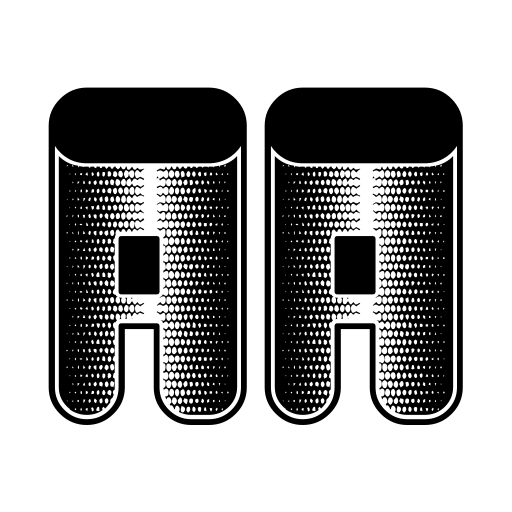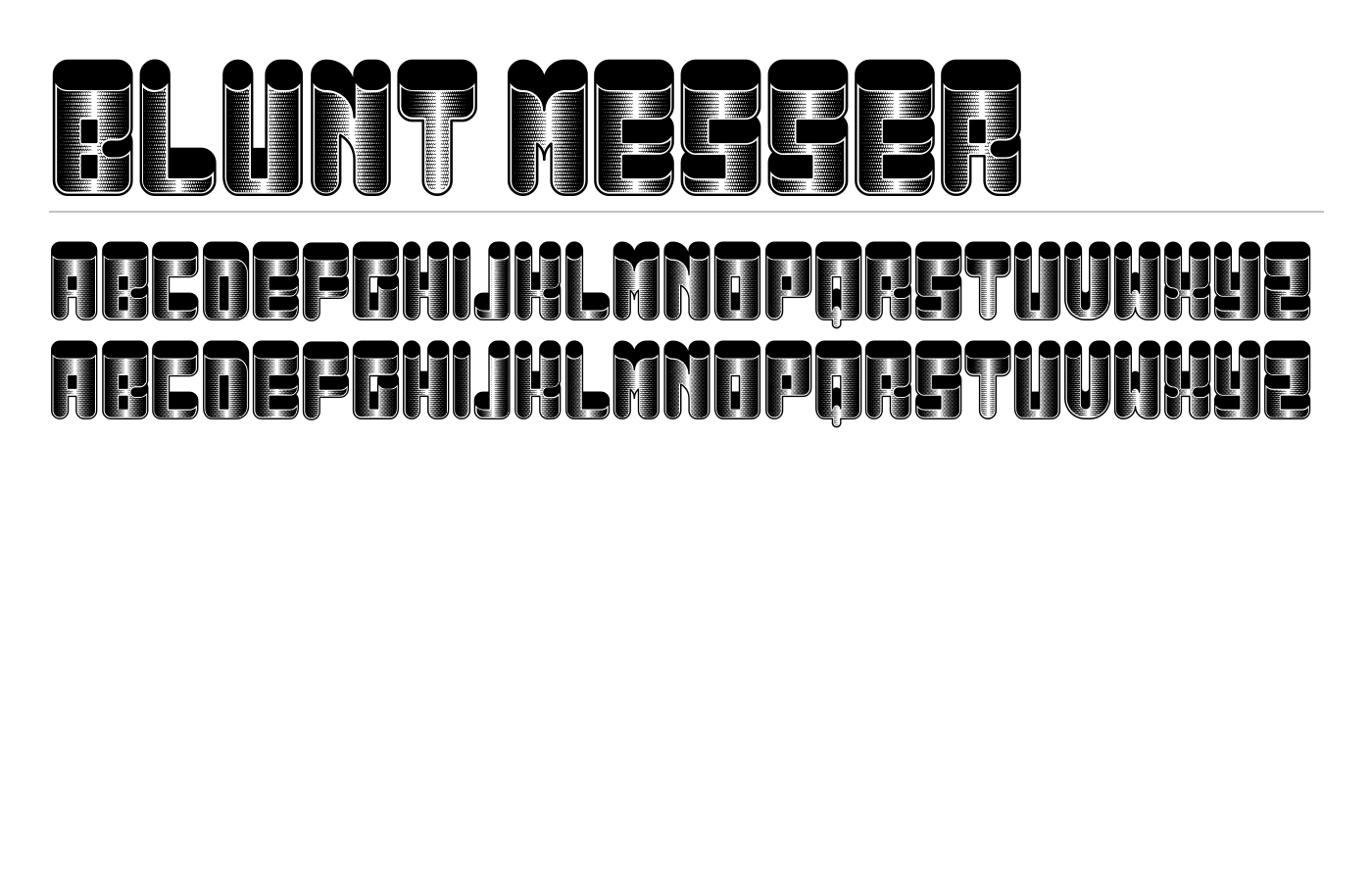
Blunt Messer is a bold, display sans serif font with a unique three-dimensional effect created by its intricate halftone shading. Its rounded corners and thick, compact letterforms give it a strong, playful character that stands out in headlines, posters, and logos. This font is ideal for creative branding or designs seeking a modern, striking, and slightly retro vibe.
Blunt Messer Font
About Blunt Messer Font
| Font family | Blunt Messer Font |